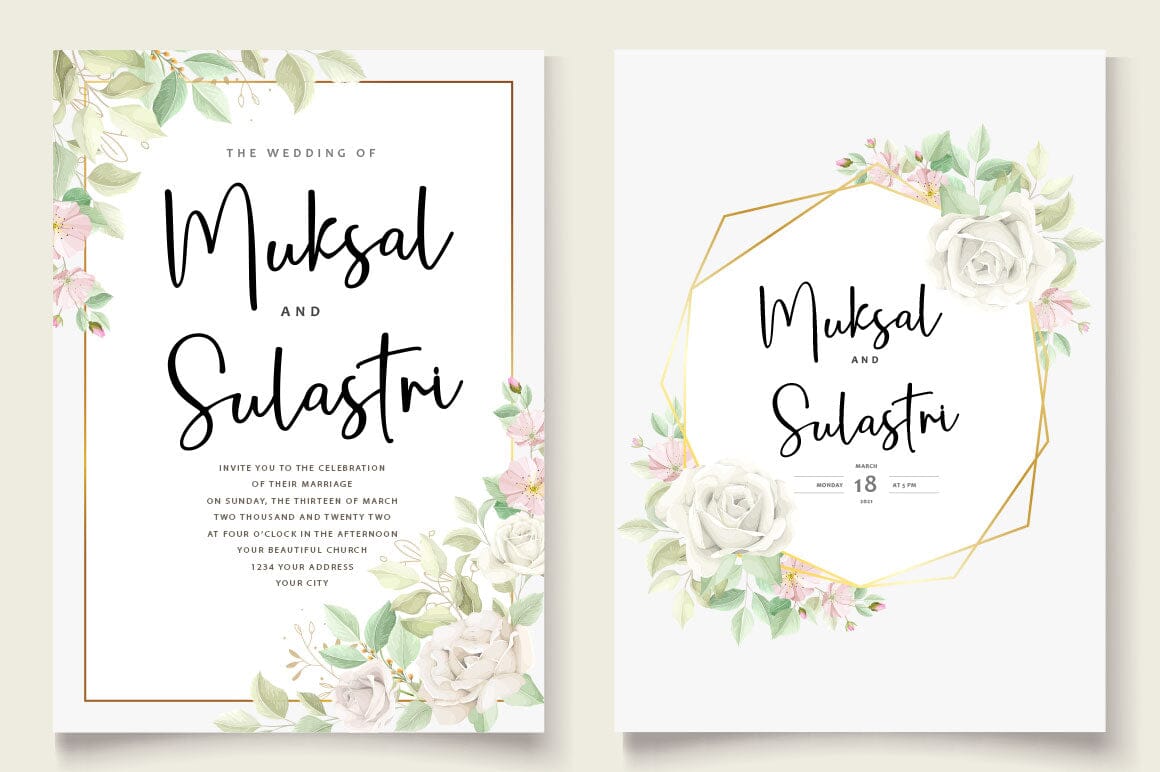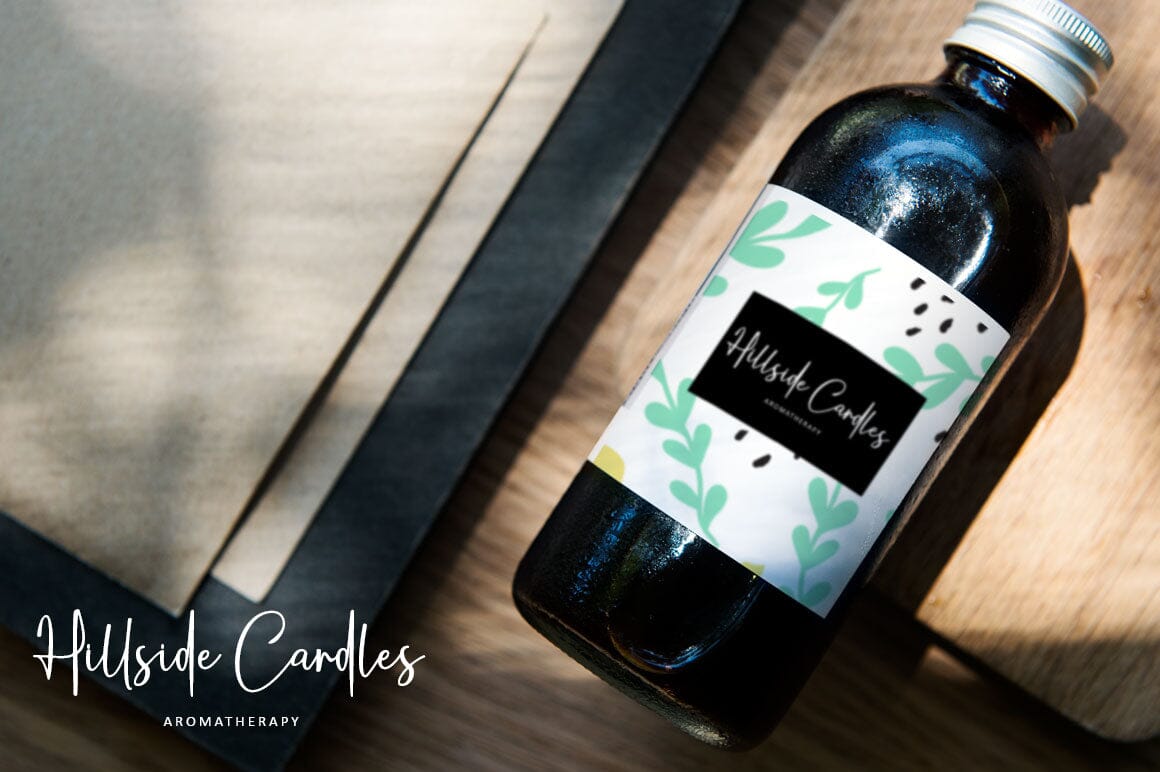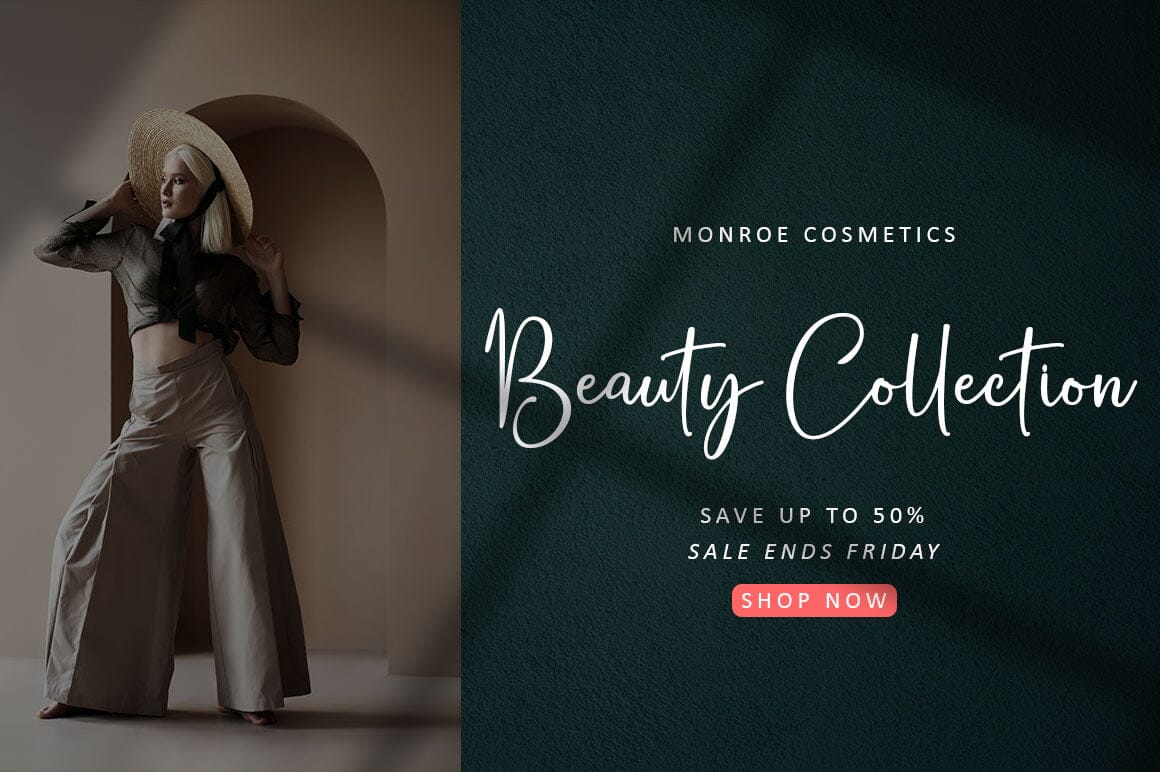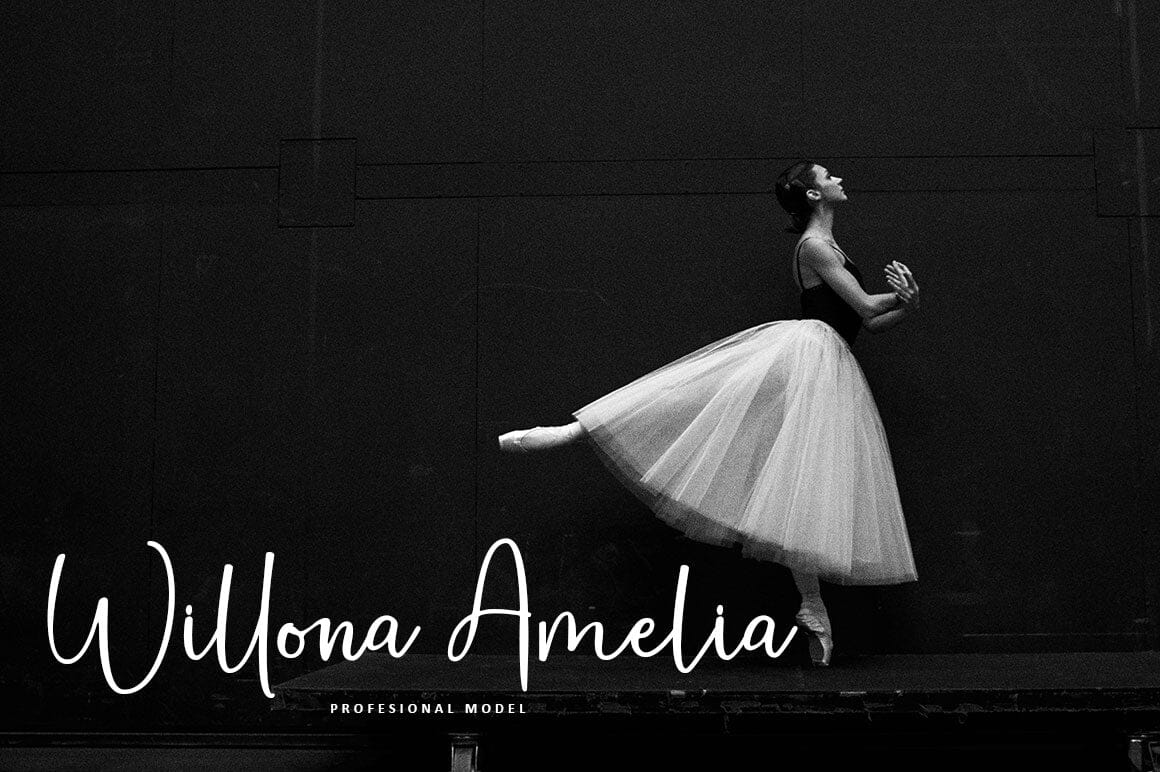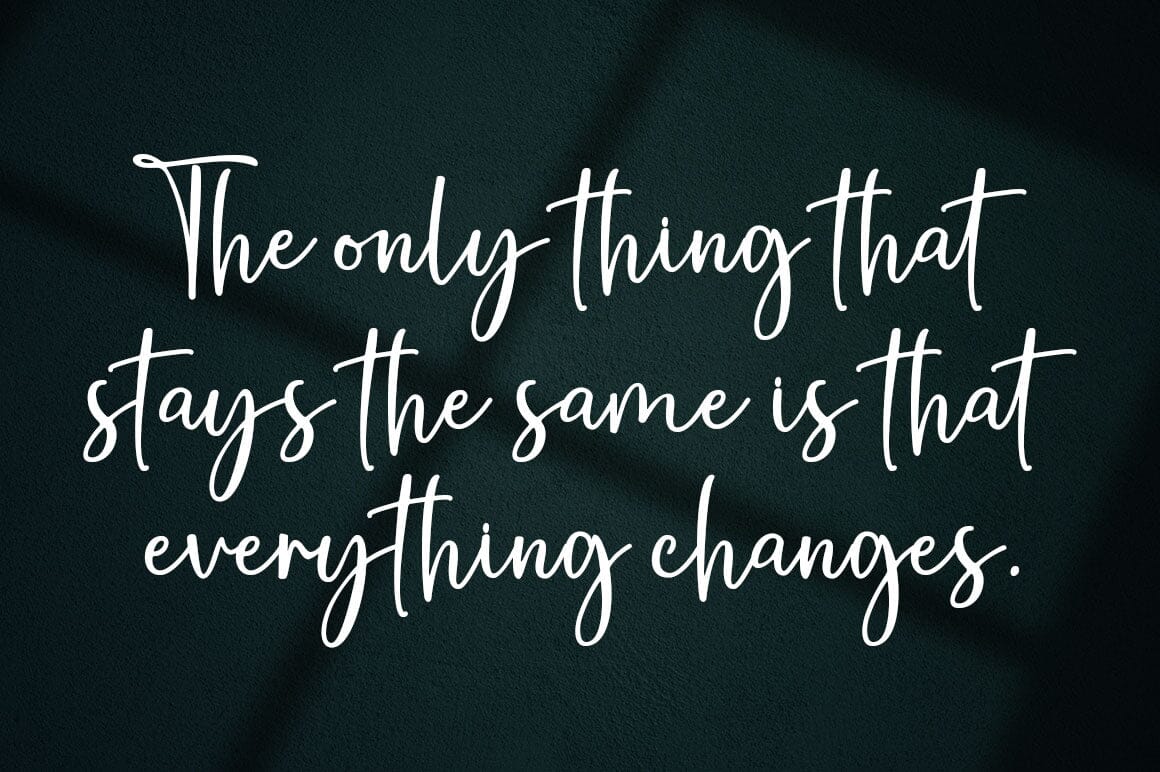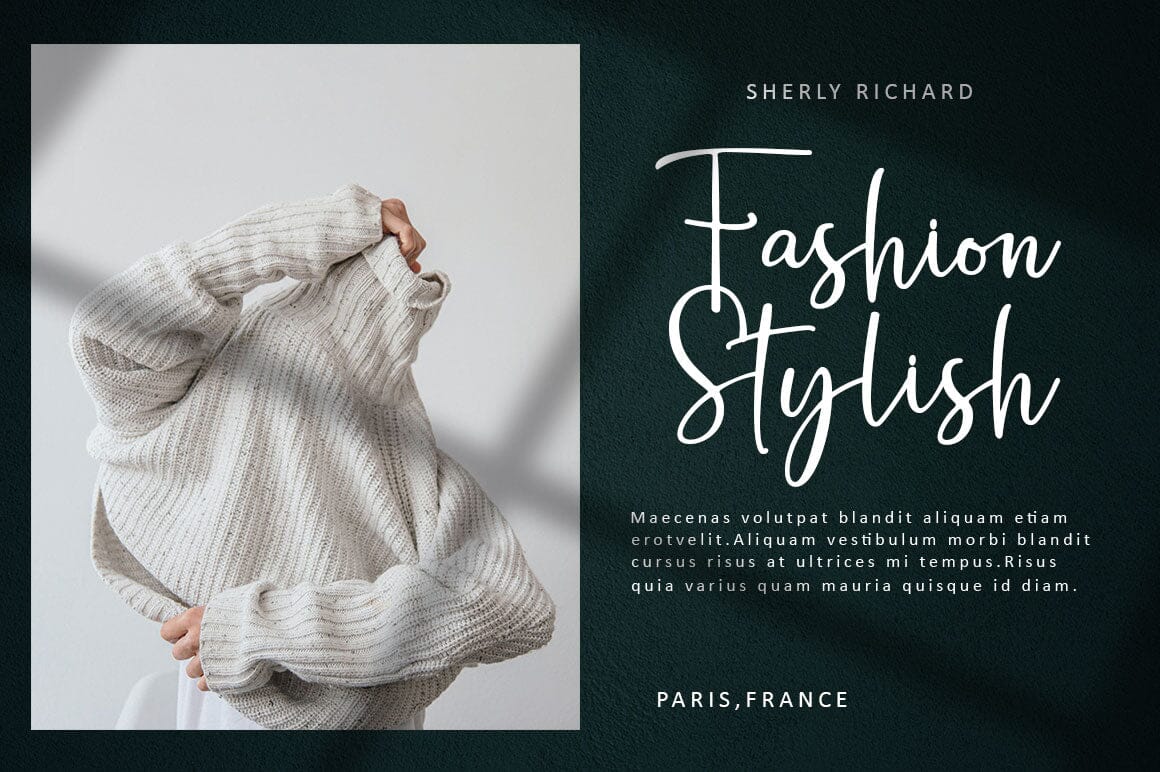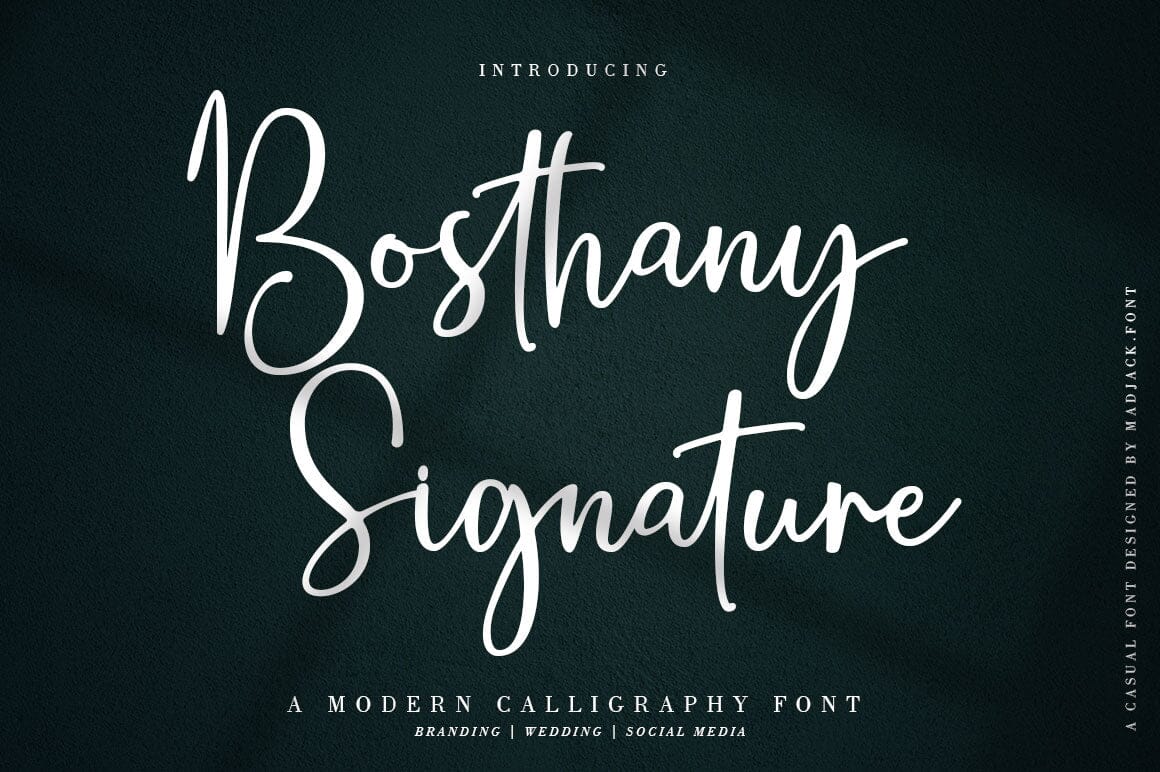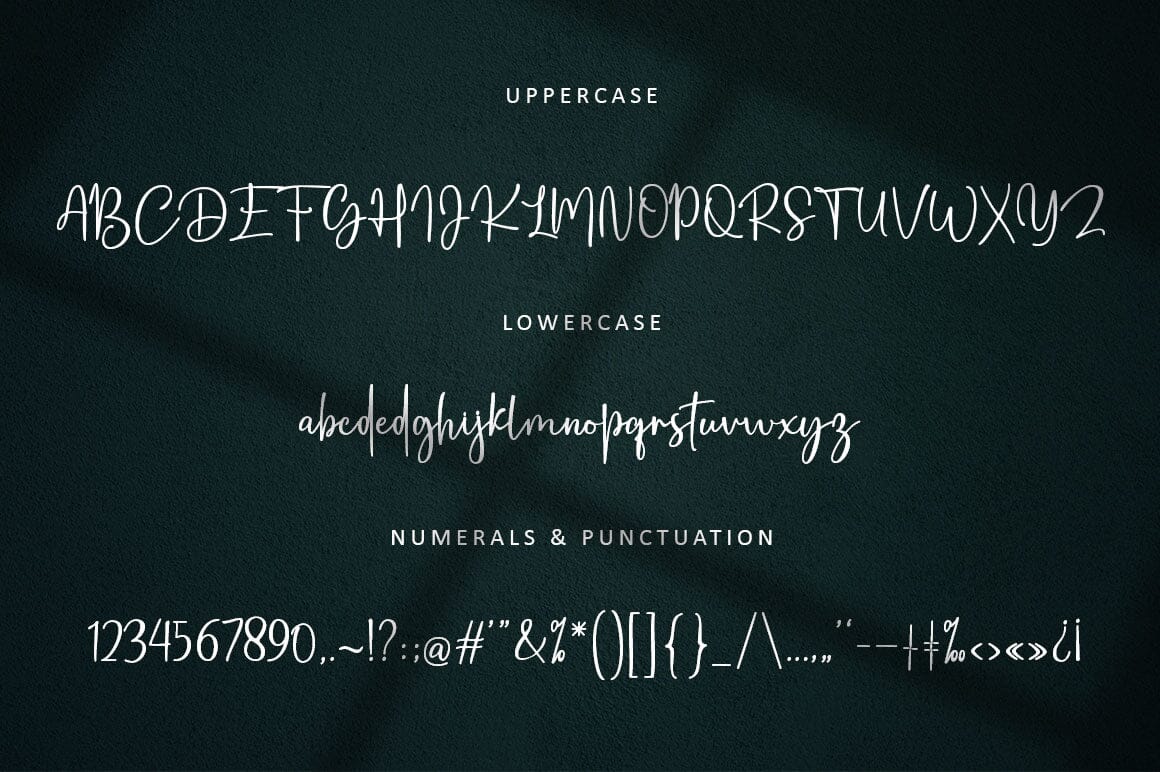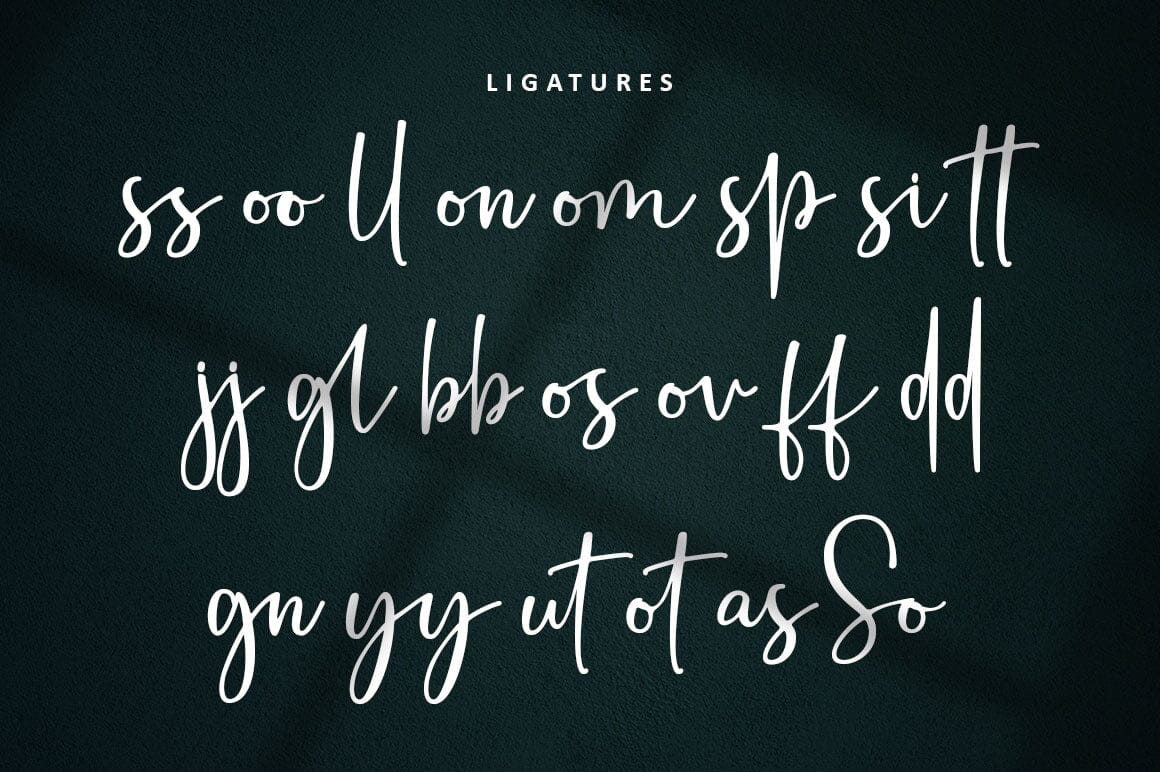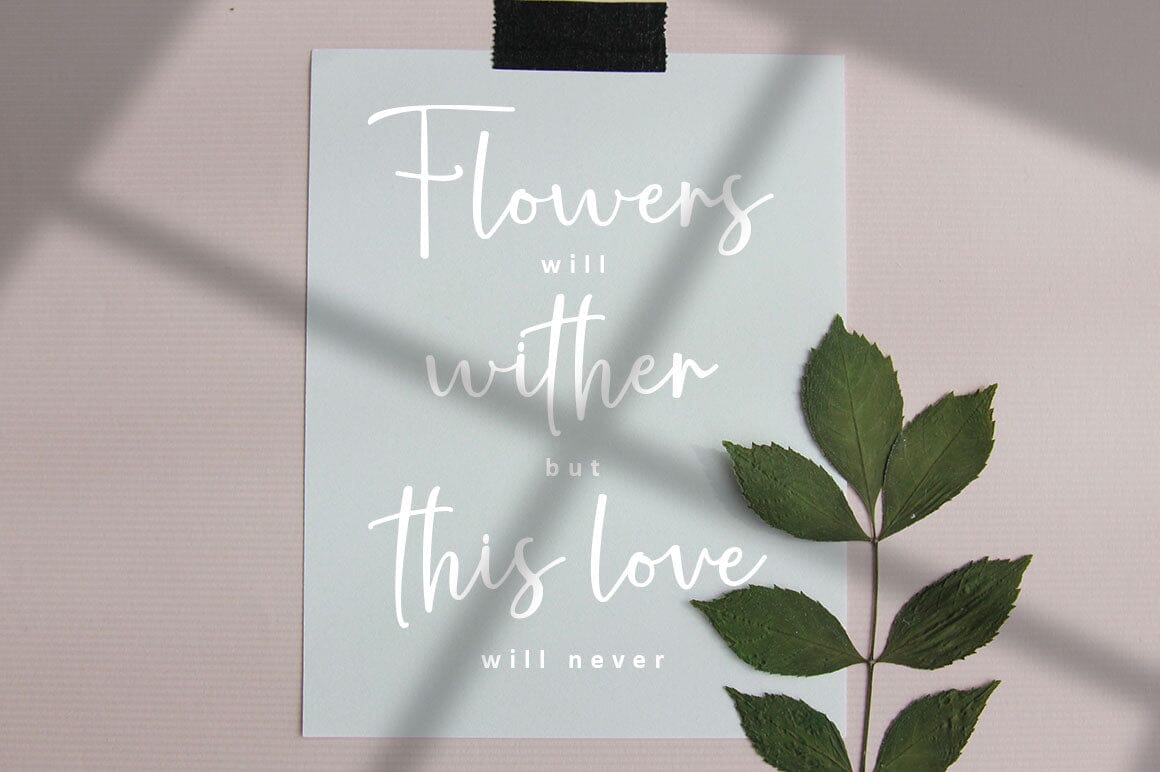
Bosthany Signature
About Bosthany Signature
Bosthany Signature is a beautiful signature font featuring a modern, eye-catching typeface created to brand any professional project. This is best applied to logos, branding, cards, packaging, book covers, wedding invitations, printed quotes, merchandise, and so on. Check out the preview above for inspiration on how you can use it. Ð’ Feature: Ð’ Style Collection Beautiful Ligature Multilingual Support PUA coded Numbers and Punctuation Ð’ We hope you enjoy your experience using our fonts. Please feel free to contact us for further product information or problem complaints. Thank you and happy designing.